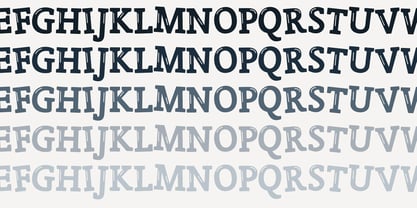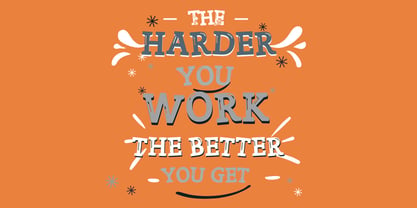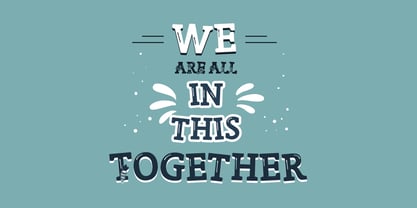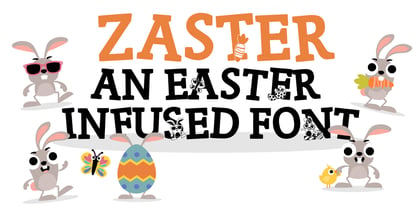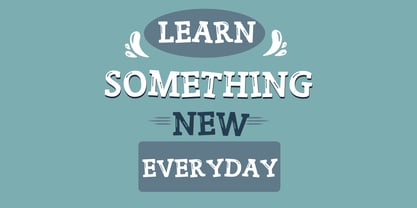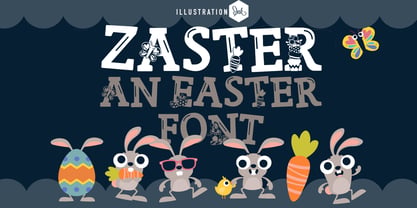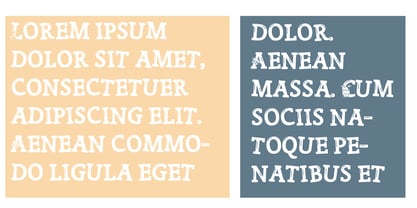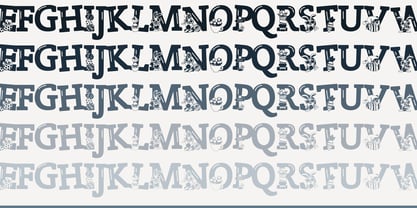
ZP Zaster
by Illustration Ink
The ZP Zaster Font Family was designed by Illustration Ink and published by Illustration Ink. ZP Zaster contains 9 styles and family package options. More about this family
This hand-crafted font is a whimsical, hand-crafted serif with a bouncy baseline and toggled letters, sporting Easter Bunnies. A hand-crafted font is a font that is designed to look like it was written by hand. It is often used for invitations, greeting cards, and other items. Handwritten fonts can be either formal or informal, and they can be used for a variety of purposes. Some of the characteristics of handwritten fonts include: The letters are not perfectly uniform in size or shape. There may be slight variations in the spacing between letters and words. The font may have a "wiggly" or "squiggly" appearance. The font may be difficult to read at small sizes. Handwritten fonts can be a great way to add a casual touch to your designs. They can also be used to create a sense of nostalgia or whimsy. However, it is important to choose a handwritten font that is appropriate for the project you are working on. A formal handwritten font may not be appropriate for a casual invitation, while an informal handwritten font may not be appropriate for a corporate document.
ZP Zaster